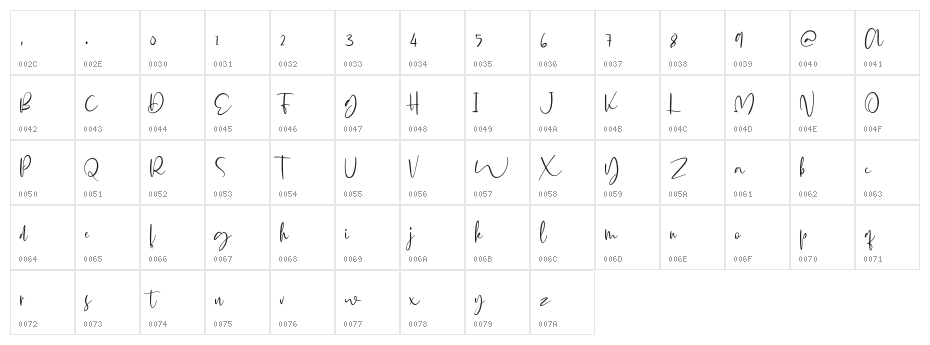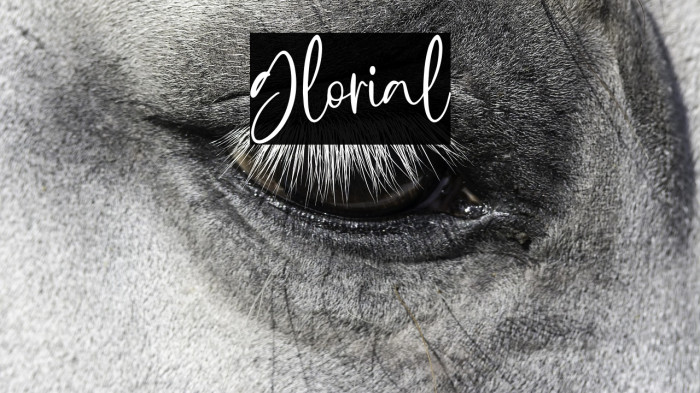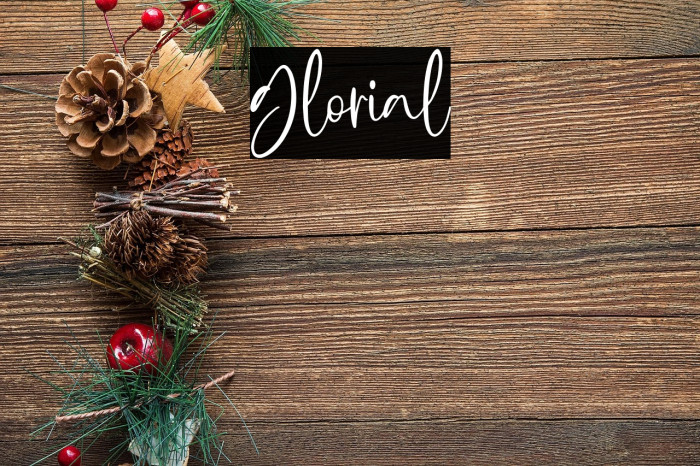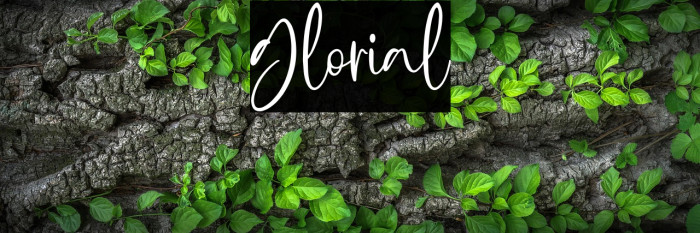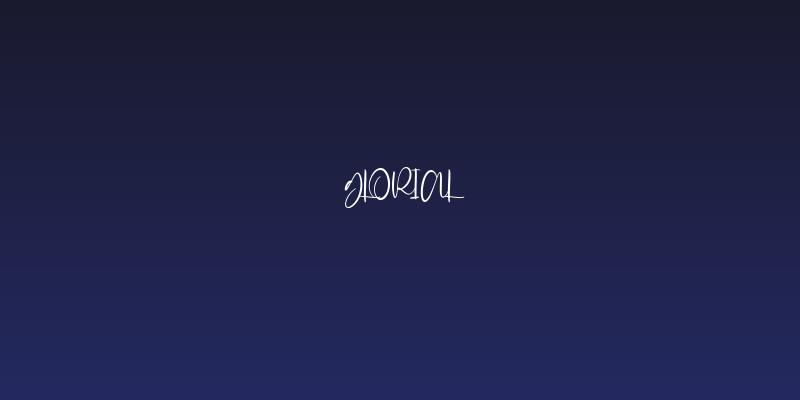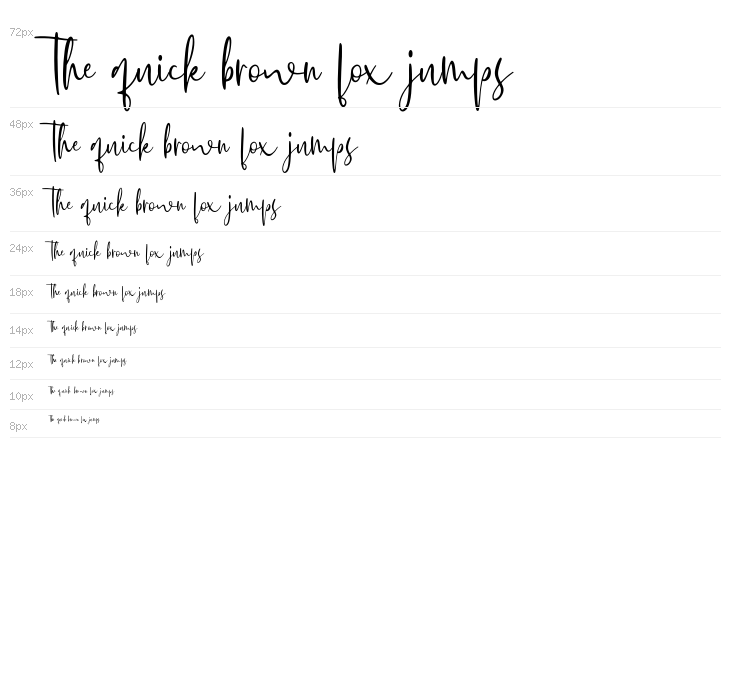
Glorial Font
Glorial Description
This font features a playful and elegant handwritten style, characterized by its flowing, cursive letters with varying stroke widths. The uppercase letters are bold and dynamic, with a whimsical flair that adds personality to each character. The lowercase letters maintain a consistent fluidity, enhancing the overall aesthetic with their graceful curves and loops. The numbers are clear and legible, matching the style of the letters with their own unique charm. This font is ideal for projects that require a personal touch, such as invitations, greeting cards, or branding materials that aim to convey warmth and creativity.
GLORIAL UPPERCASE
GLORIAL LOWERCASE
GLORIAL OTHER CHARS
| Proposed Projects | Ideal for invitations, greeting cards, branding materials, and creative projects. |